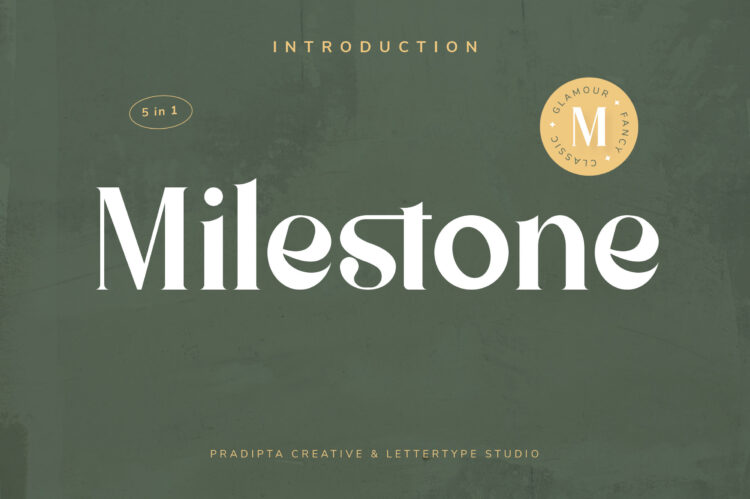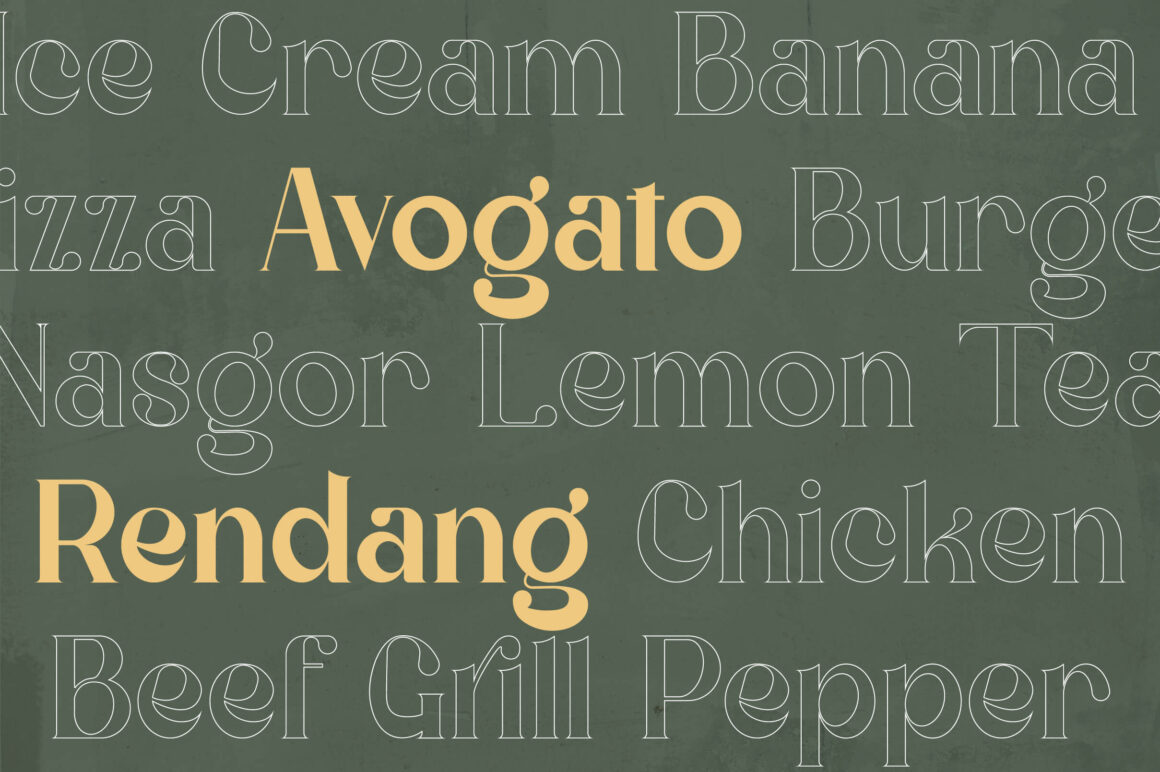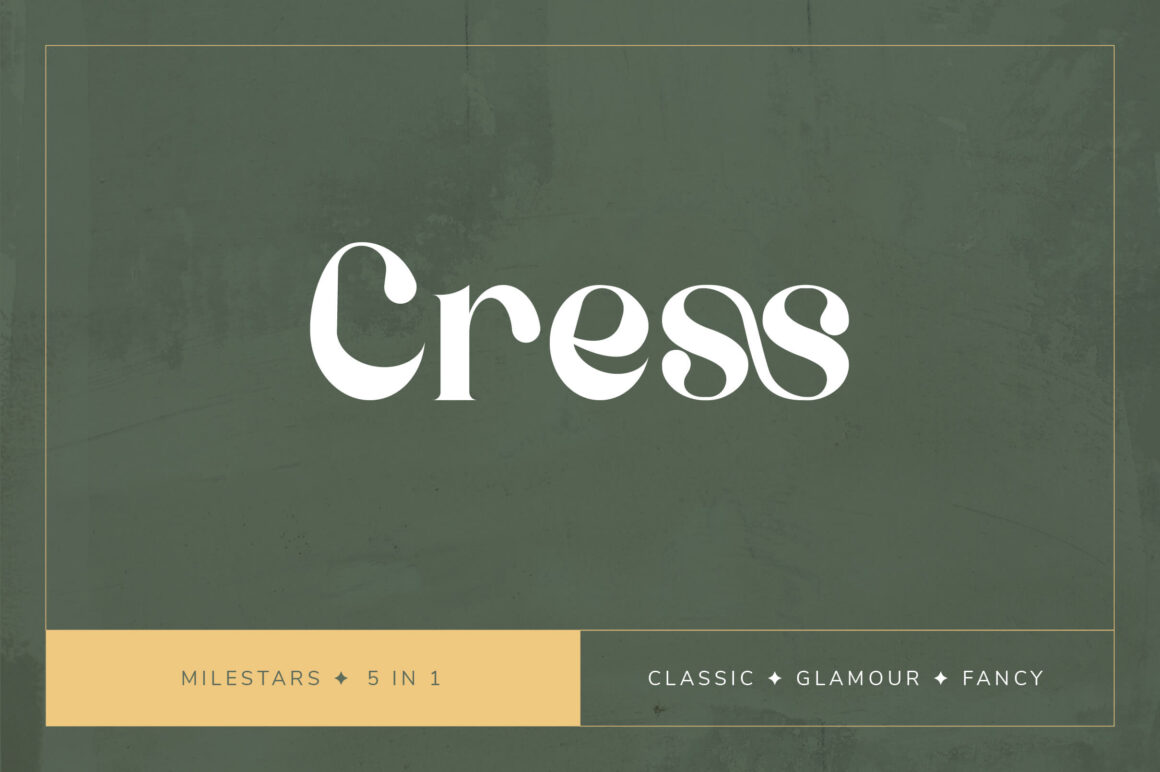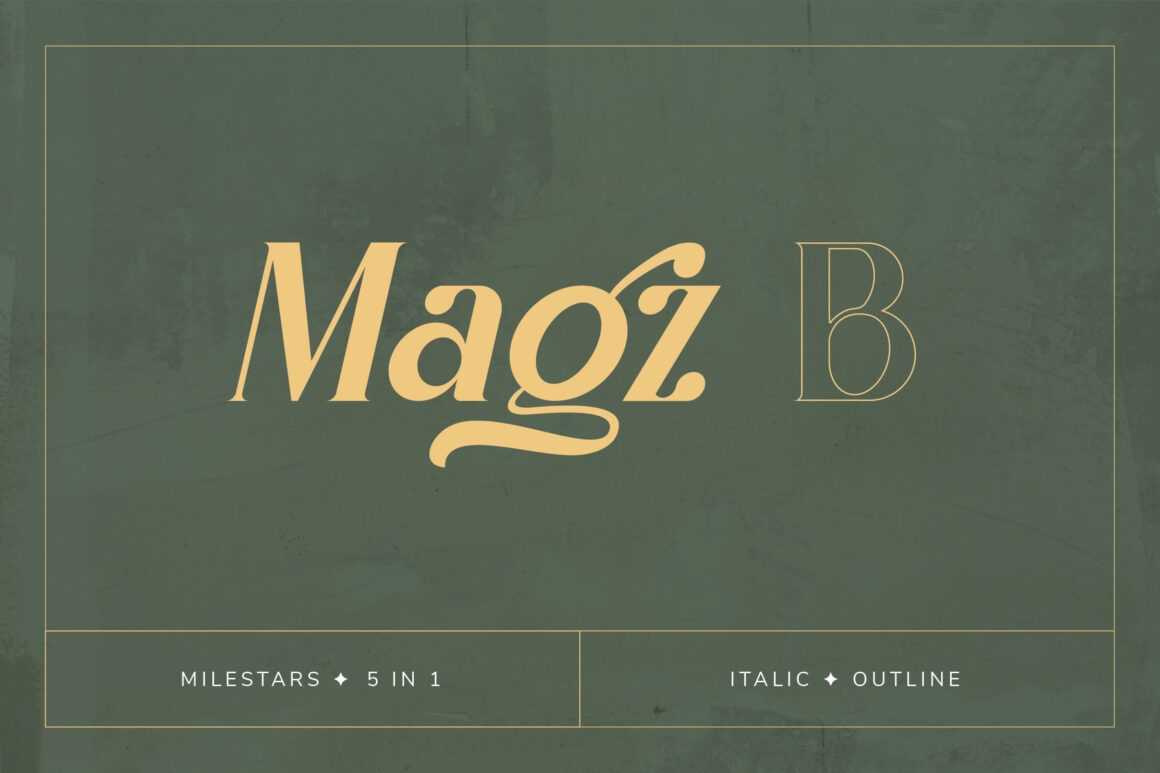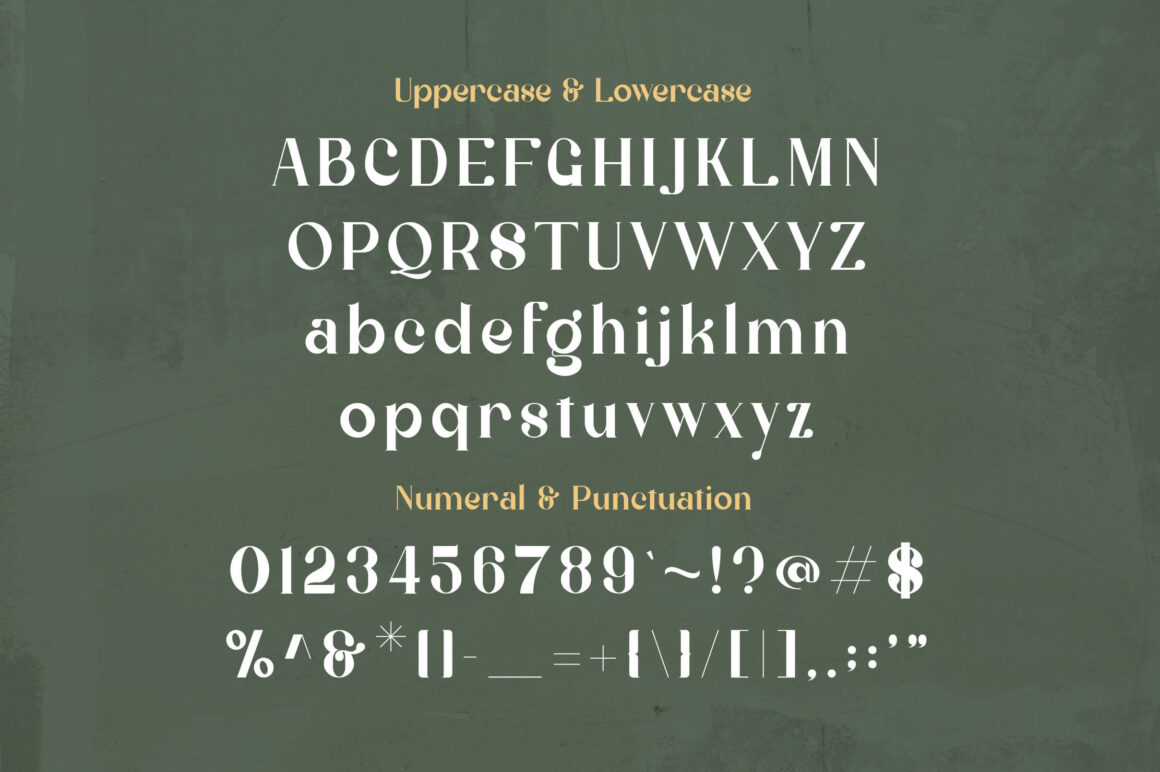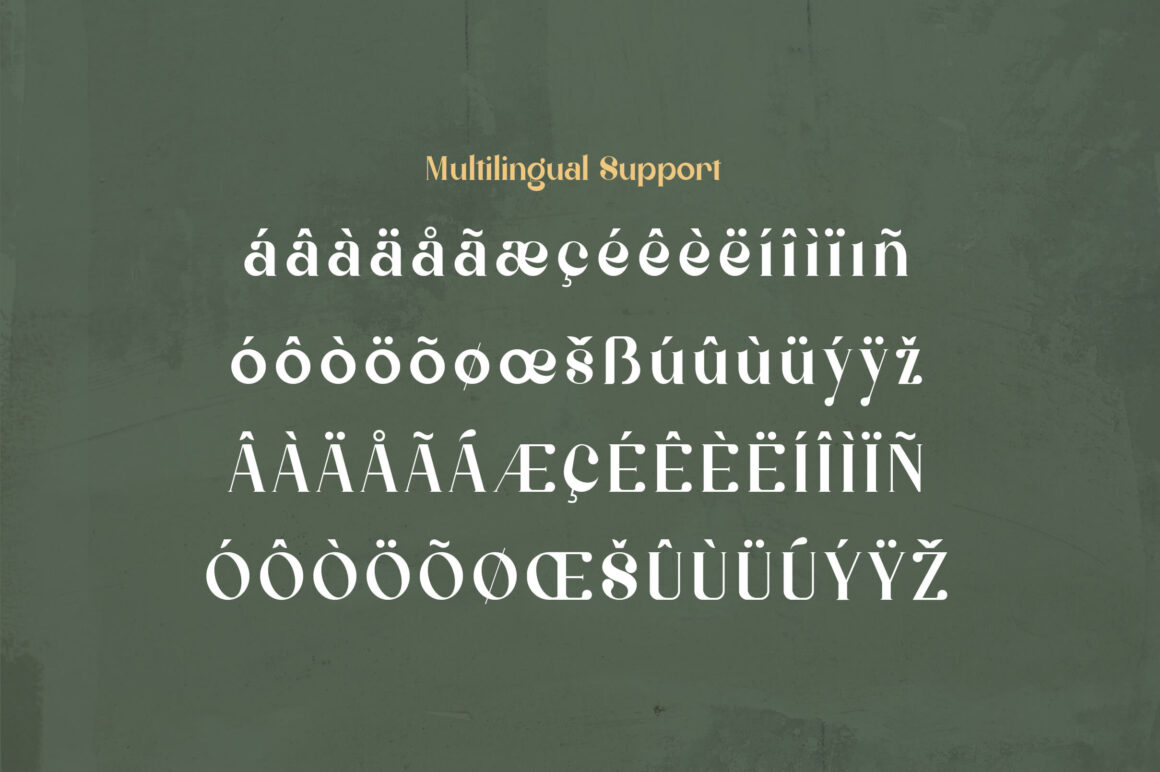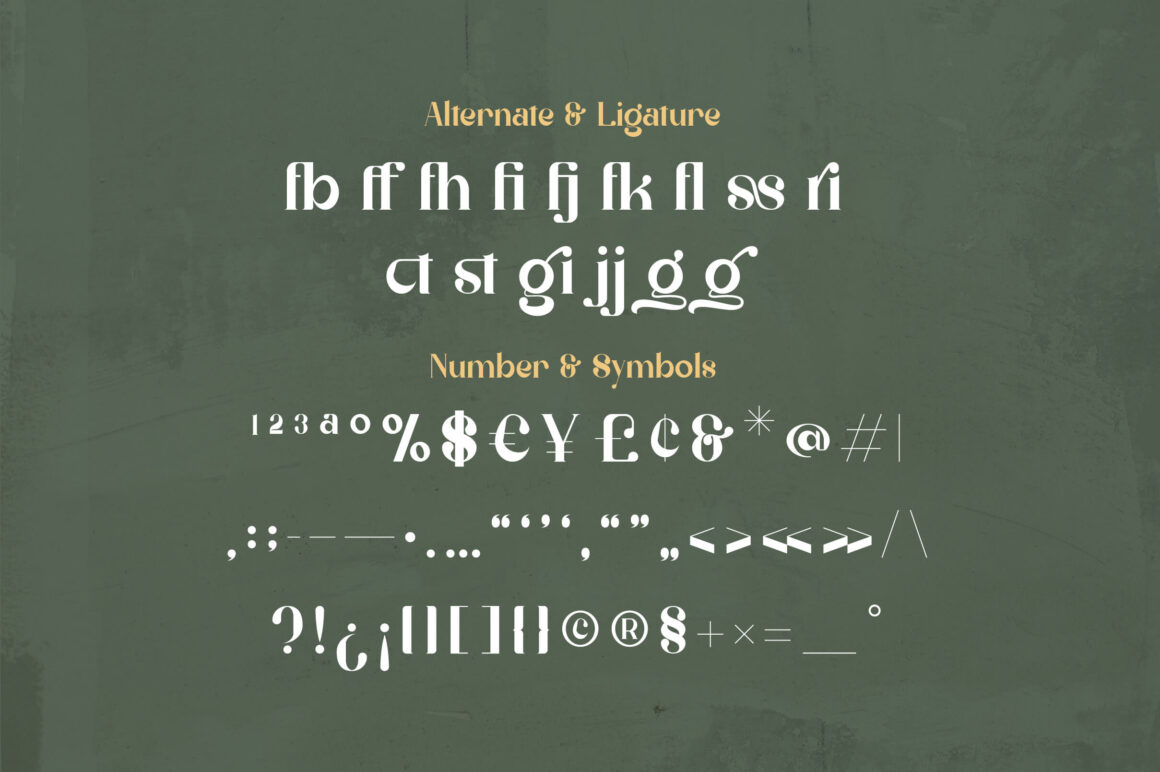
Milestone
Milestone Italic
Milestone Outline
Milestone Condensed
Milestone Condensed Italic
Milestone Serif is a glamorous and timeless font that blends the elegance of classic serif design with a touch of modern sophistication. Crafted with refined details and balanced edges, this typeface brings luxury and style to any project, making it perfect for both print and digital use.
Ideal for logos, branding, apparel, signage, headers, posters, and wedding invitations, Milestone Serif elevates your work with a stylish and professional look. Its versatile design allows you to create projects that feel both modern and classic, ensuring your brand or creative ideas stand out with elegance.
Milestone Features:
• 3 Styles
• Upright & Oblique
• 169+ Languages Supports